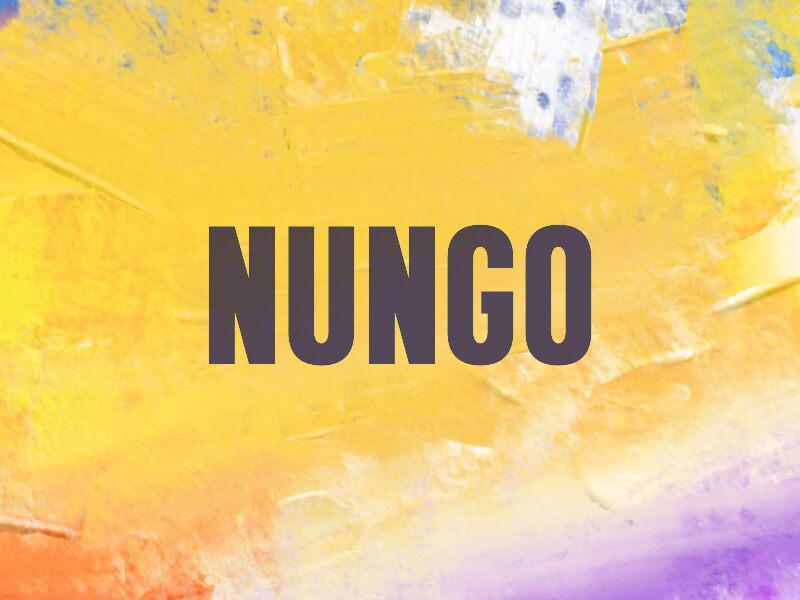
Nungo font designed by wepfont.com is a free sans serif font with a sculptural geometric style. The modern font showcases a structured yet minimalistic character design making each glyph impactful in its own unique way. The contemporary impression of this font allows for versatility that will be appreciated in branding/identity designs as well as posters and even book covers.
This font was carefully designed as a base to use for professional designs including magazines, resumes, invitations, and about everything a designer can think of. Why not use it to experiment with your skills and add it to your next design project to see how well it works.
Nungo is a unique and modern free font that offers a sleek and stylish aesthetic, ideal for various design projects. Whether you are creating a logo, a poster, or any other graphic design, Nungo will bring a fresh look to your work.